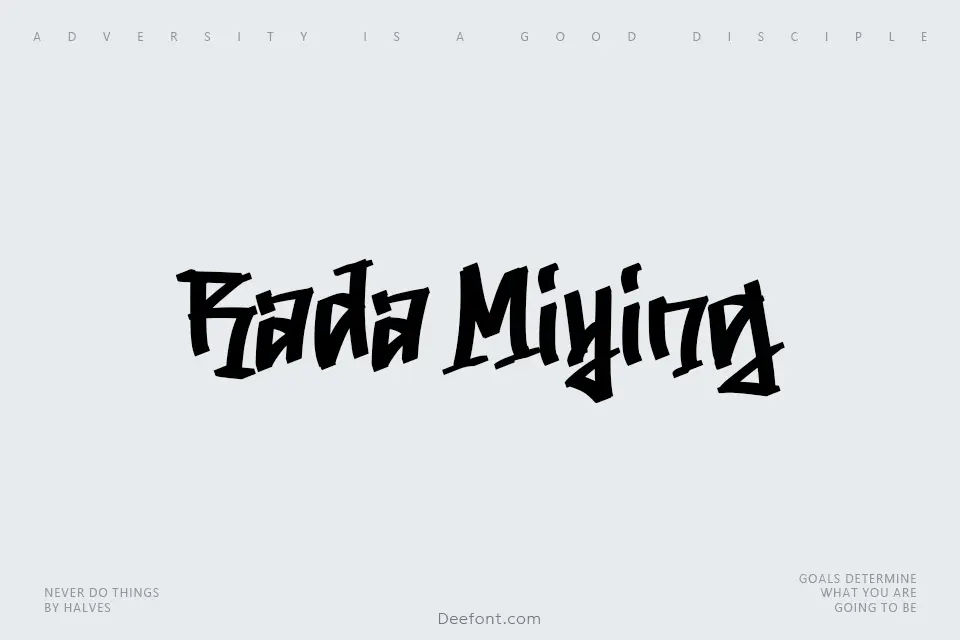
Rada Miying Font
Rada Miying is a bold, graffiti-inspired handwritten display font featuring sharp, dynamic strokes and expressive letterforms. Perfect for creative projects, street art designs, posters, and contemporary branding, this font brings energetic personality and urban flair to your typography. With its distinctive character and versatile style, it transforms ordinary text into eye-catching visual statements for modern designers seeking impactful display solutions.